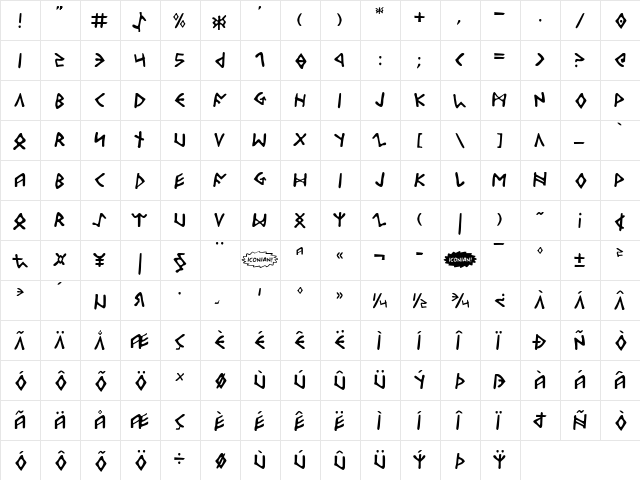
Odinson Regular
Design Context for Odinson Typeface
Odinson is a composed and adaptable typeface that performs quietly and consistently across a wide range of design contexts.